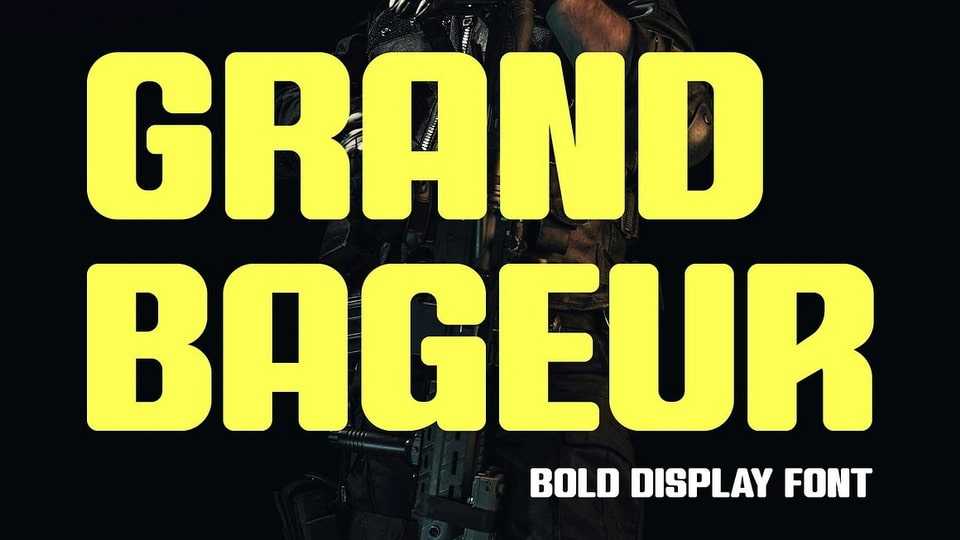
Download Grand Bageur font, a typeface that combines sporty strength with elegance. Its condensed, rounded-edge design makes it the perfect choice for urban style projects.